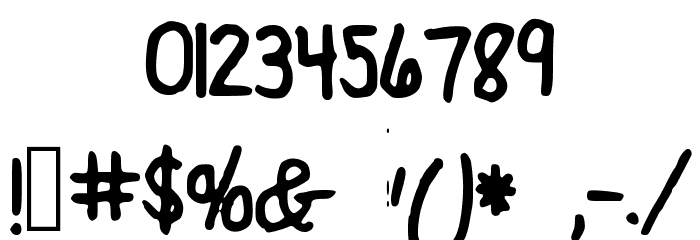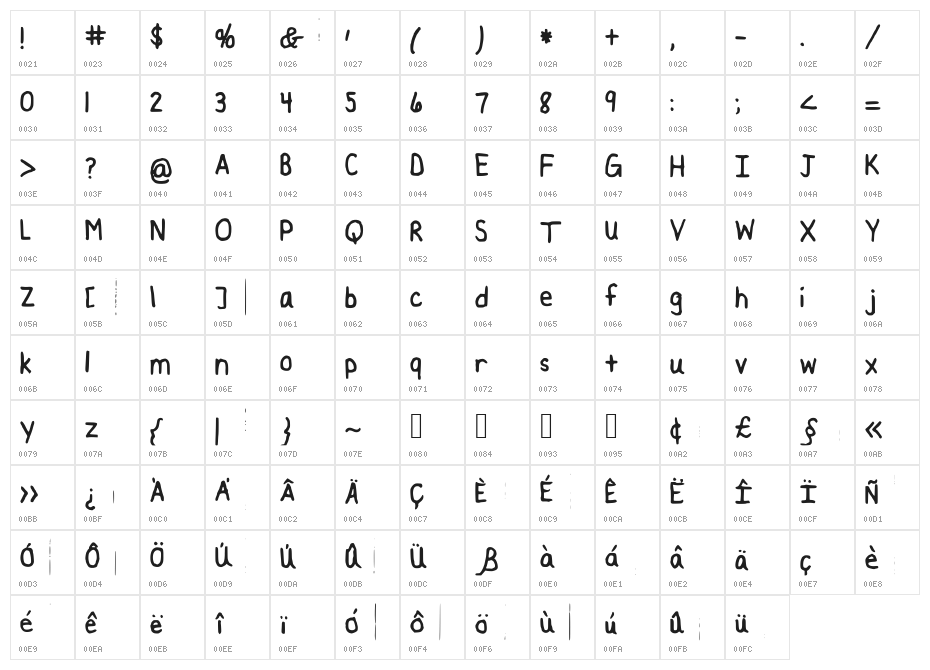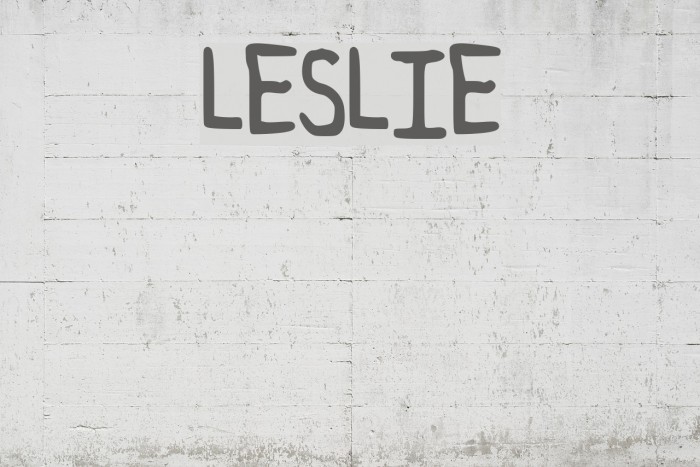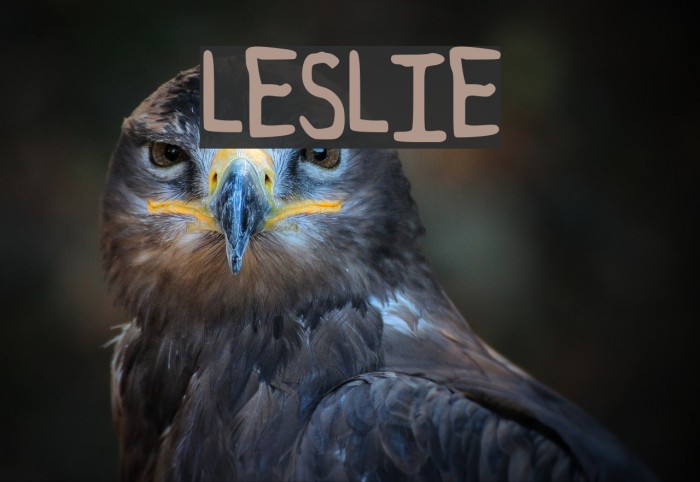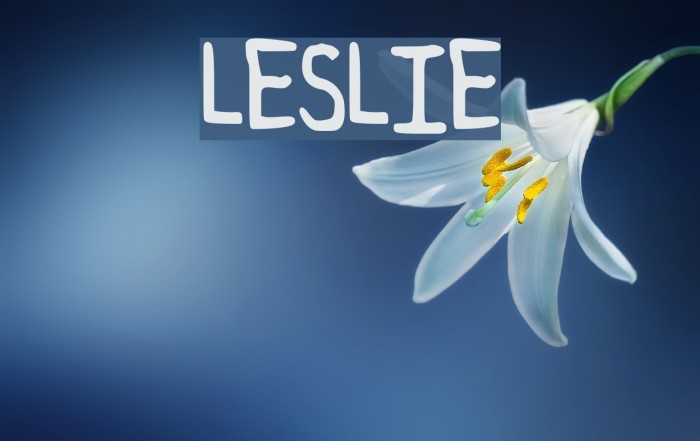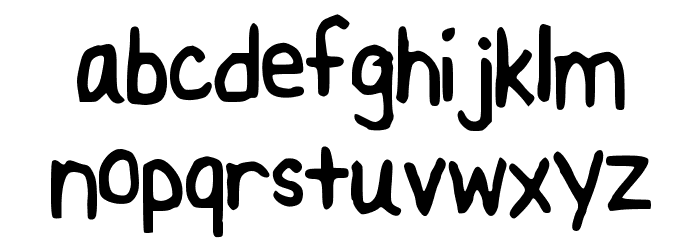
LESLIE Font
LESLIE Description
This font features a playful and informal handwritten style, characterized by its rounded and slightly irregular letterforms. The strokes are consistent in width, giving it a uniform appearance, while the slight variations in character shapes add a touch of whimsy and personality. The uppercase and lowercase letters are well-balanced, with a casual flow that makes it approachable and friendly. The numerals and special characters maintain the same playful aesthetic, ensuring consistency across all text elements. This font is ideal for projects that require a personal touch or a sense of fun and creativity.